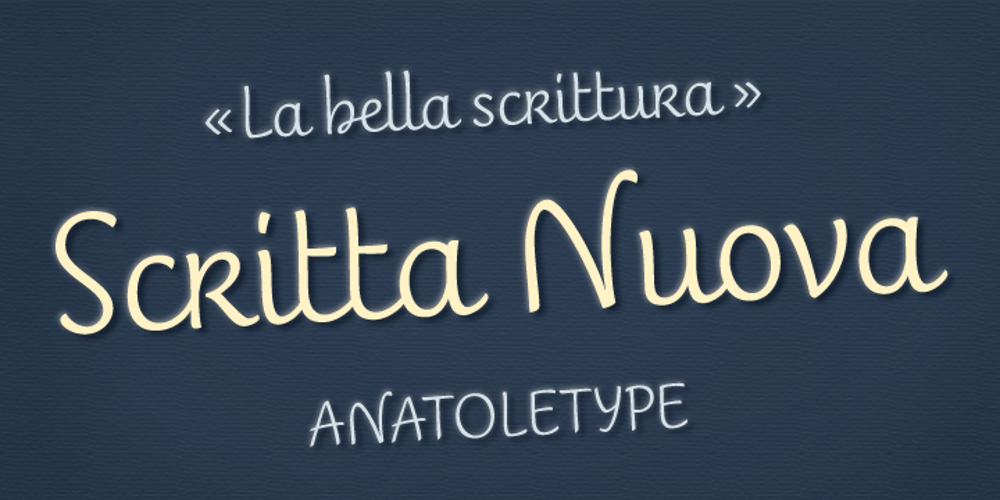
Scritta Nuova Font Family was designed by Elena Albertoni and published by Anatoletype. Scritta Nuova contains 3 styles and family package options. Scritta Nuova was born to transpose my personal handwriting and evolved today into a smart typeface that maintains the original feel with improved legibility and visual balance. The steady rhythm and roundness of Scritta Nuova give the impression of a smooth, girlish and gentle writing. It also evokes retro calligraphic styles taught in Italian schools around the 1950s, which might have influenced in one way or another my original handwriting. Note that the capital letters can be nicely set next to each other without overlapping, unlike script typefaces with swashy capitals created as initials.